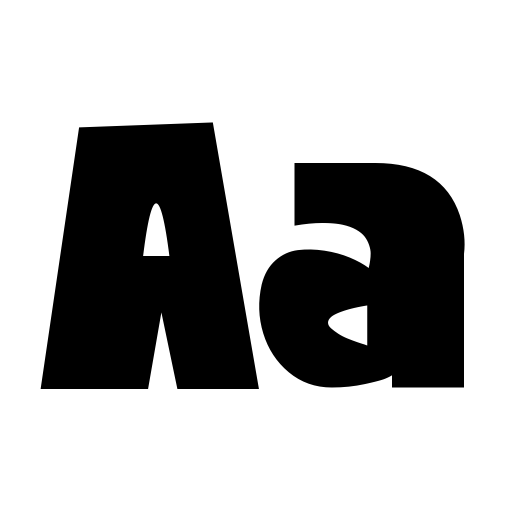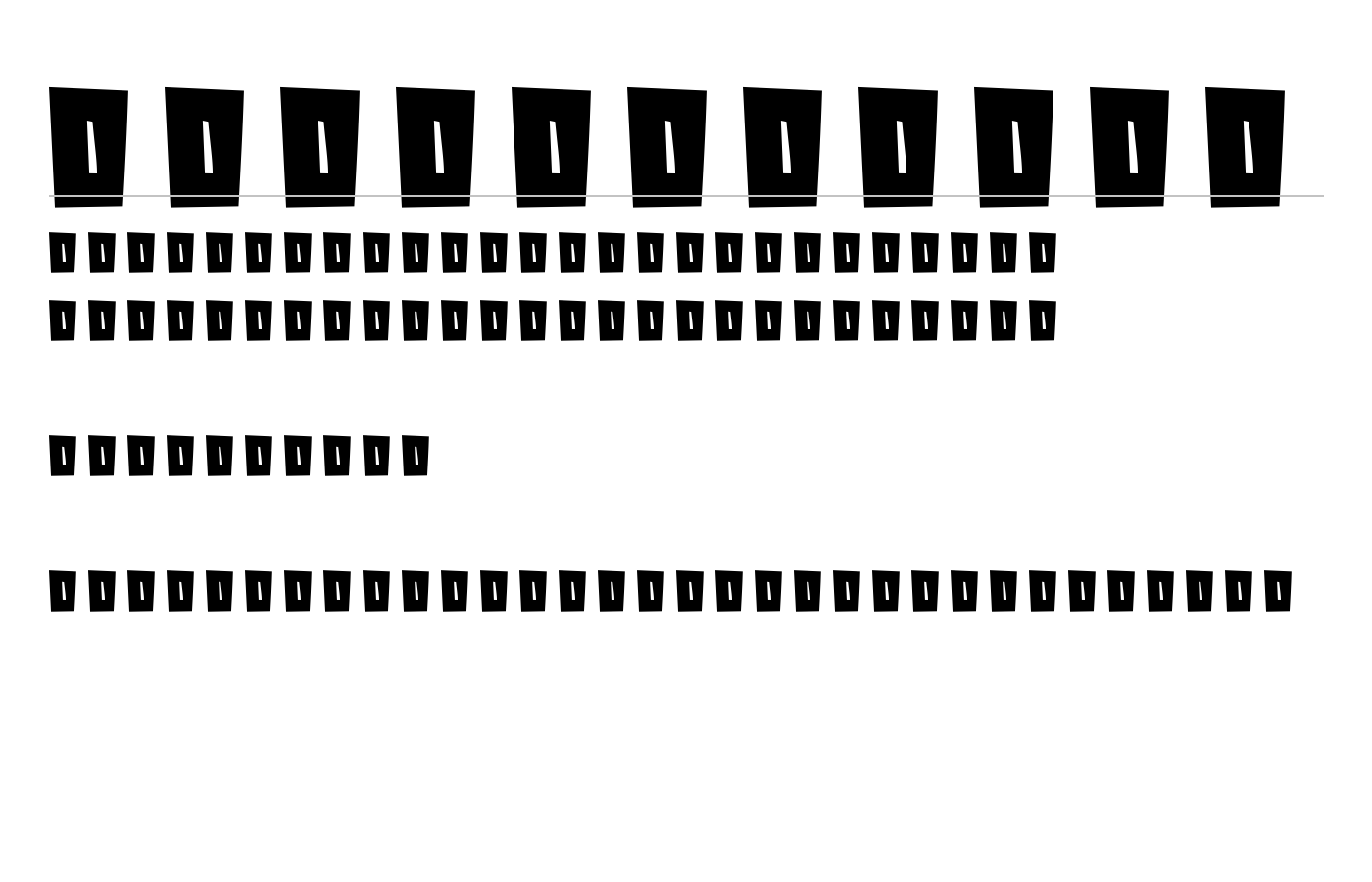
Beanesdrock is a bold, condensed sans serif font with a playful and quirky character. Its sharply rectangular letterforms lean slightly, adding dynamic energy and a modern feel, making it ideal for eye-catching headlines, posters, and branding that seeks a fun yet strong presence. This font works well in designs needing a bold statement with a touch of unconventional charm.
Beanesdrock Font
About Beanesdrock Font